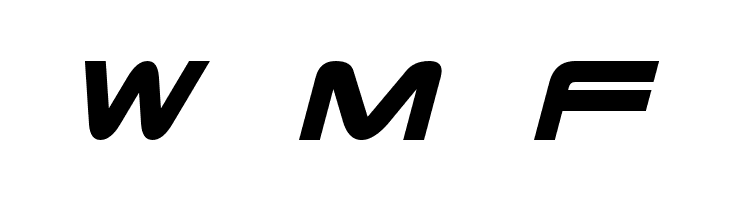
Poly-Regular Font
A classic serif font with balanced proportions and moderate contrast, offering elegance and readability.
Schwarzenegger Font
A bold, futuristic typeface with geometric structure and consistent stroke width.
Schwarzenegger Italic Font
A sleek, italicized font with a modern and dynamic style.
Convergence-Regular Font
A clean, modern sans-serif font with consistent stroke widths and geometric letterforms.
Poly-Italic Font
An elegant serif font with an italic slant and moderate contrast.
Schwarzenberg Regular Font
A bold, tall, and narrow font with a strong geometric structure.
Schwarzenegger Condensed Font
A bold, condensed font with a modern, industrial style.
Schwarzenegger Condensed Italic Font
A bold, condensed italic font with a modern and dynamic style.
Schwarzenberg Italic Font
A bold, italic font with tight spacing and a modern, dynamic style.
HingeschludertBlack Font
A playful, hand-drawn font with bold, rounded strokes and a whimsical style.
Schwarzenberg Capitals Negative Regular Font
A bold, decorative font with a three-dimensional, framed design.
Schwarzenberg Capitals Regular Font
A bold, decorative font with geometric shapes and a vintage feel.
Schwarzenberg Capitals Hollow Regular Font
A bold, hollow font with a vintage, three-dimensional style.